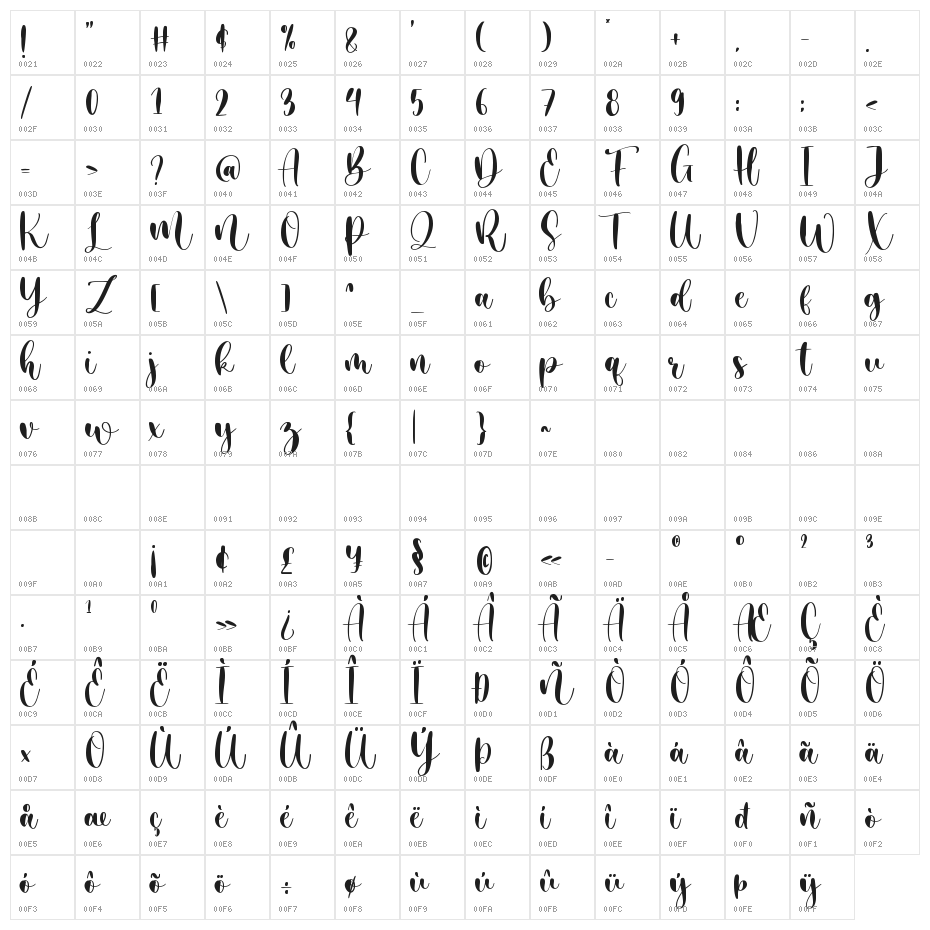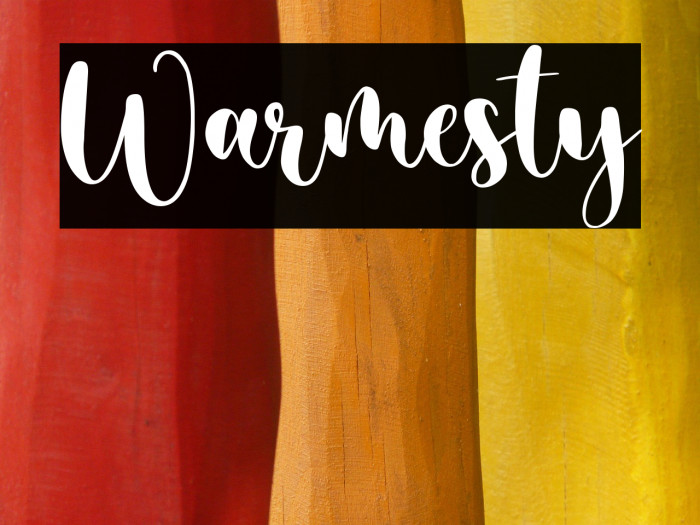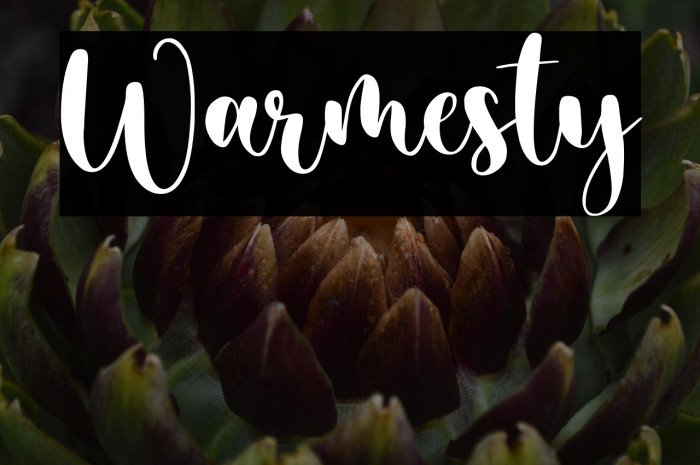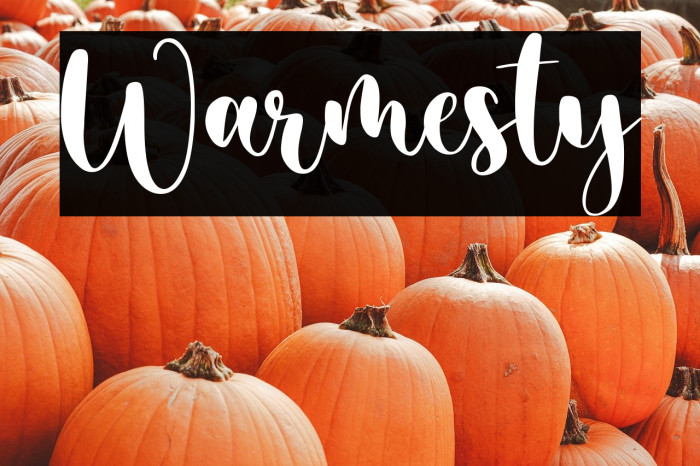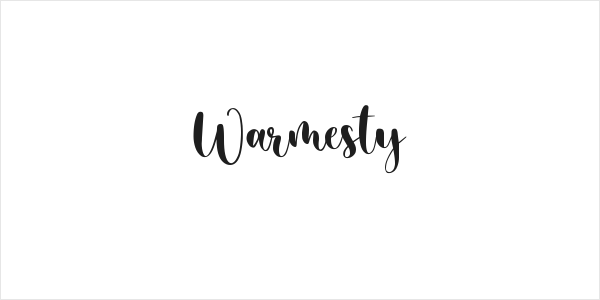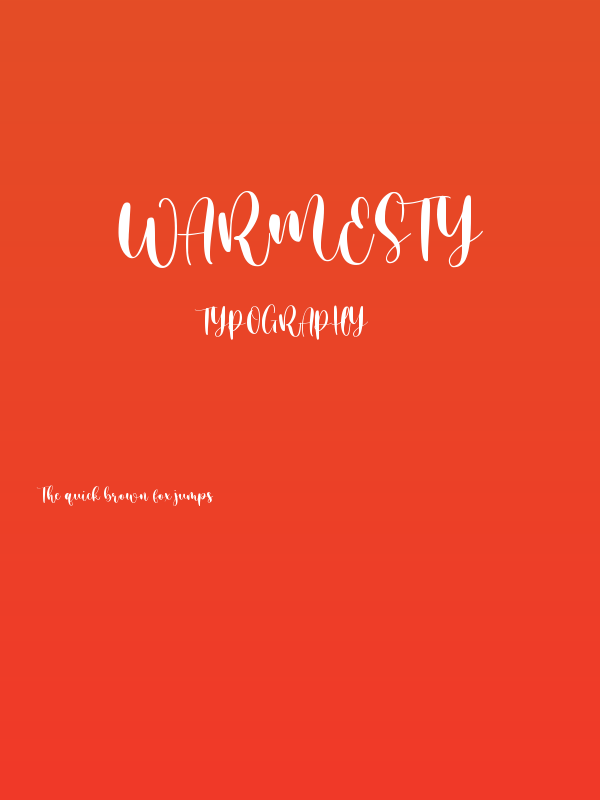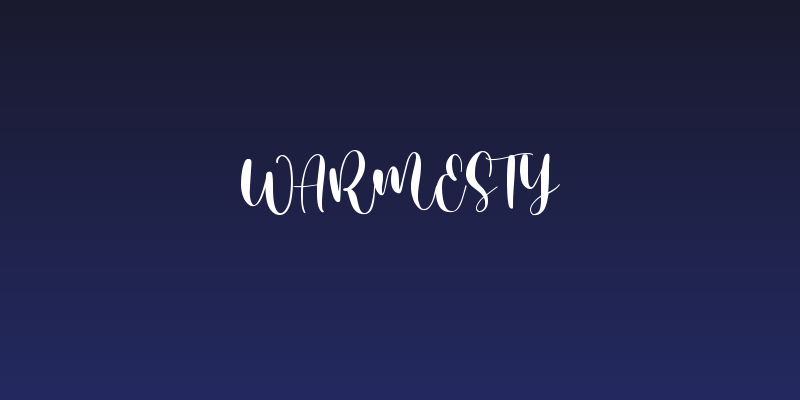
Warmesty Font
Warmesty Description
This font features a lively and flowing script style, characterized by its elegant and cursive letterforms. The uppercase letters are tall and graceful, with sweeping curves and loops that give a sense of movement and fluidity. The lowercase letters maintain a consistent style, with rounded edges and a playful, handwritten feel. The numerals are bold and clear, matching the overall aesthetic of the font. Special characters are integrated seamlessly, adding to the font's versatility. This font exudes a sense of warmth and personality, making it ideal for creative and expressive design projects.
| Use Case | Logos, Headlines, Invitations |
| Proposed Projects | Ideal for wedding invitations, greeting cards, branding, and social media graphics. |